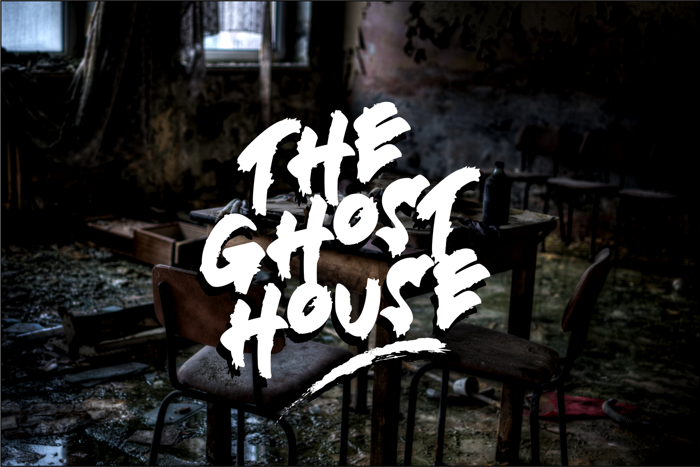
DEATHBLOOD Font
Deathblood is a violent, powerful and rough handwritten font with bold splatters. It’s the perfect font for any horror or thriller design.